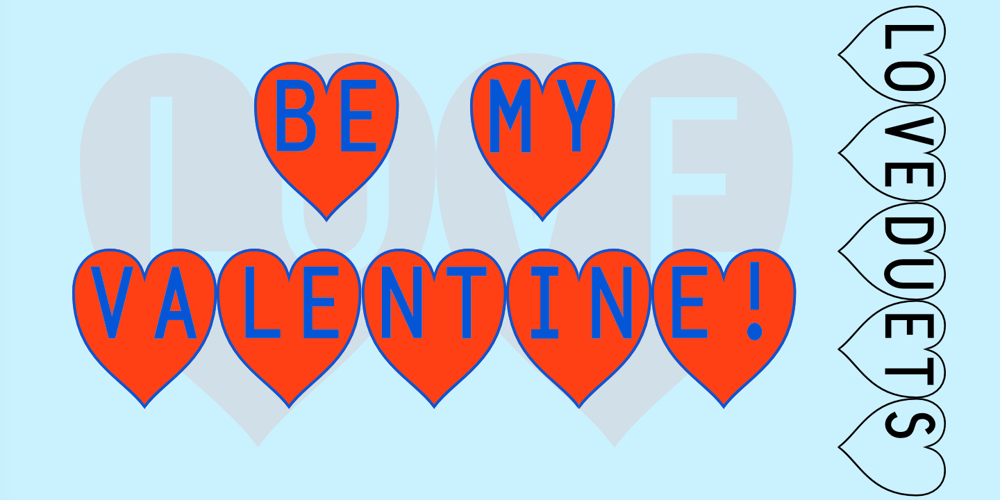
Love Duets Font Family was designed by Robert Schenk and published by Ingrimayne Type. Love Duets contains 2 styles and family package options. LoveDuets is a family of two novelty fonts that have letters on hearts. There are at least five other font families on myfonts that have have letters on hearts but LoveDuets differs from them because it uses the OpenType feature of Contextual Alternatives (calt) to put two letters on each heart, one on the left side and a second on the right side. The two styles in the family can be used in layers to increase color possibilities. The brace characters have empty half hearts that can be used to replace spaces or to complete hearts at ends of lines. LoveDuets can be used when hearts are appropriate such as for Valentines Day, anniversaries, and weddings.